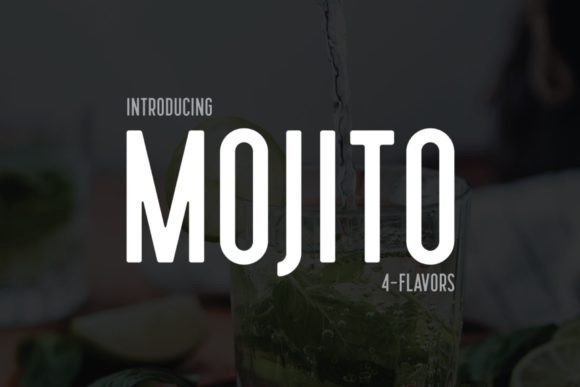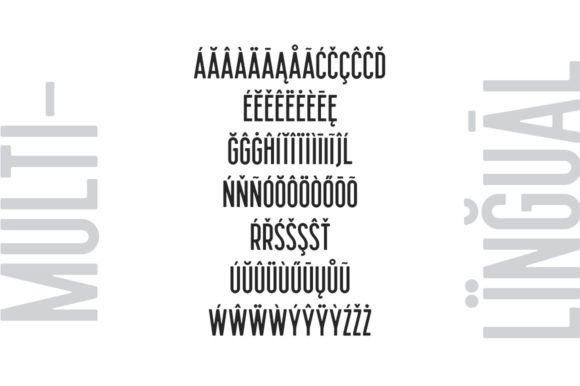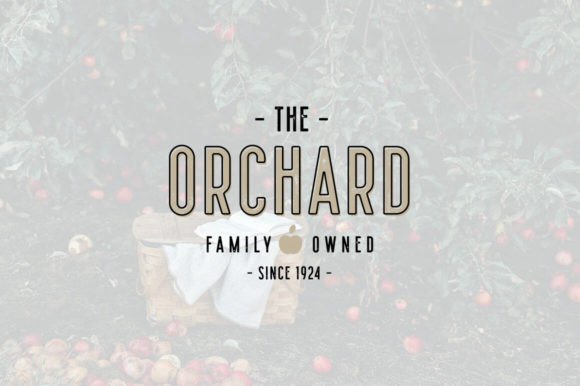
Mojito Font: A Refreshing Sans Serif for Modern Logo Design & Branding
About the Mojito Font
Presenting Mojito Font, a unique and stylish typeface that will make your work stand out. Mojito is a refreshing sans serif font that is ready for anything! This handy semi-condensed font includes clean & textured fonts, with oblique versions for each. Equally comfortable being put to use in modern or vintage projects, this versatile font is excellent for logos & branding, advertising, promotions & events, plus countless other uses.
Mojito’s semi-condensed structure and clean lines make it ideal for headlines, short body copy, and branding applications where a modern yet approachable feel is desired. It excels in logos, posters, and packaging, particularly for products targeting a younger demographic or those emphasizing a fresh, vibrant image. Avoid using Mojito for large blocks of text or UI elements; its legibility suffers in smaller sizes or extended paragraphs.
Pairing Mojito effectively depends on the desired mood. For a bolder statement, consider pairing it with a geometric sans-serif like Futura or a contrasting serif like Playfair Display. To emphasize its friendly aspect, a softer script like Great Vibes or a rounded sans-serif like Lato would create a balanced and harmonious composition.
Its overall personality is best described as friendly and modern, possessing a clean, energetic vibe suitable for brands projecting approachability and innovation.